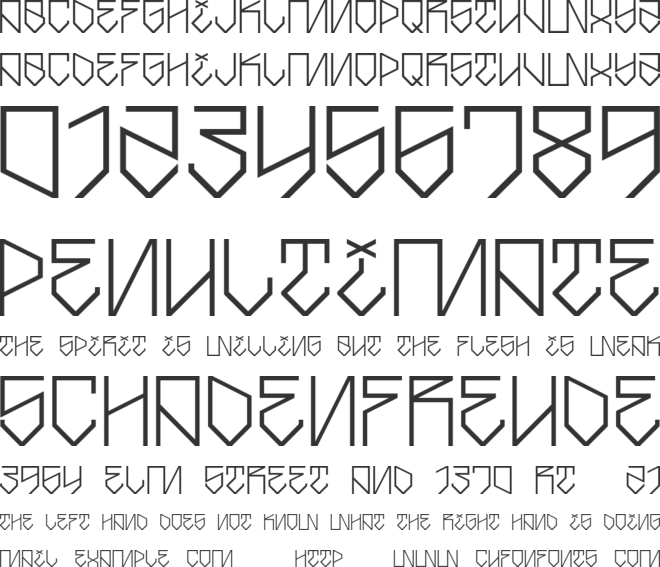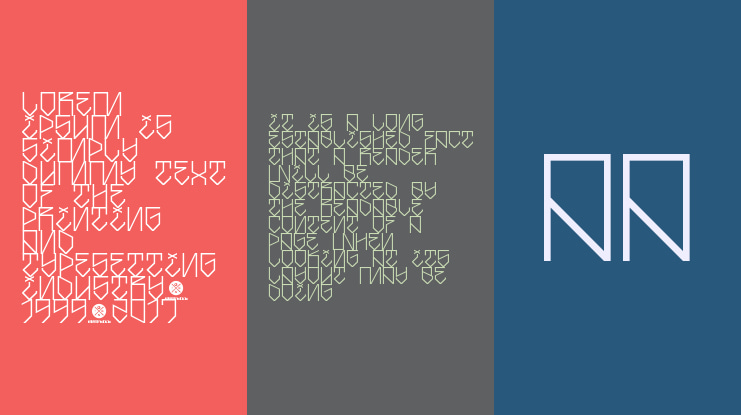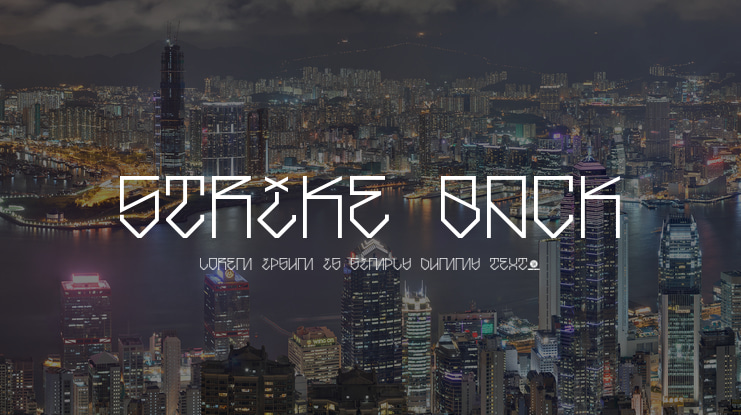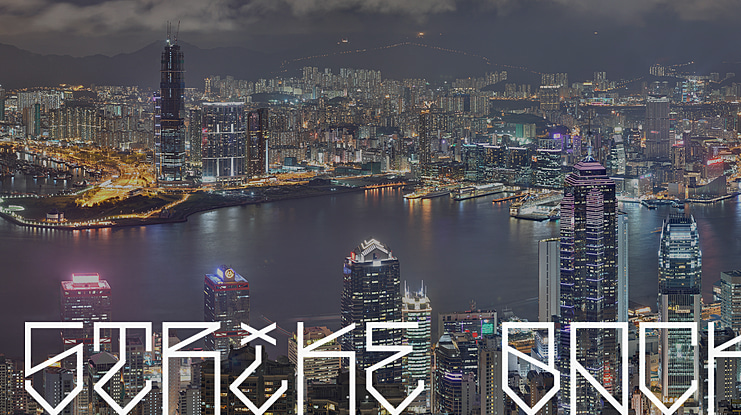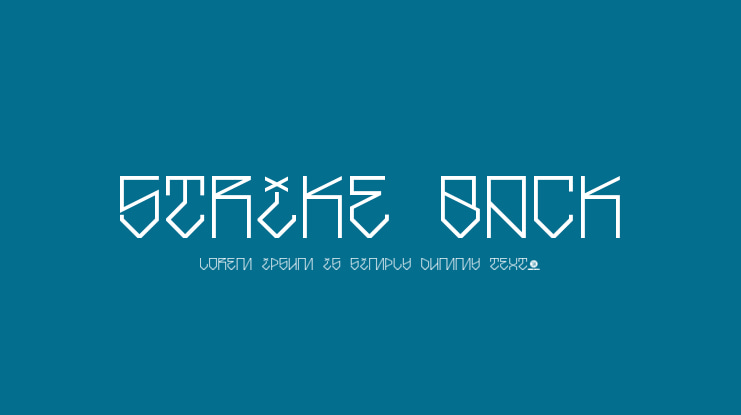
Strike Back Font
Strike Back is a mod of our Lighting Cruz Regular font, taking inspiration from a promotional flyer from Ecuadorian hardcore punk band Reasons to Remain.